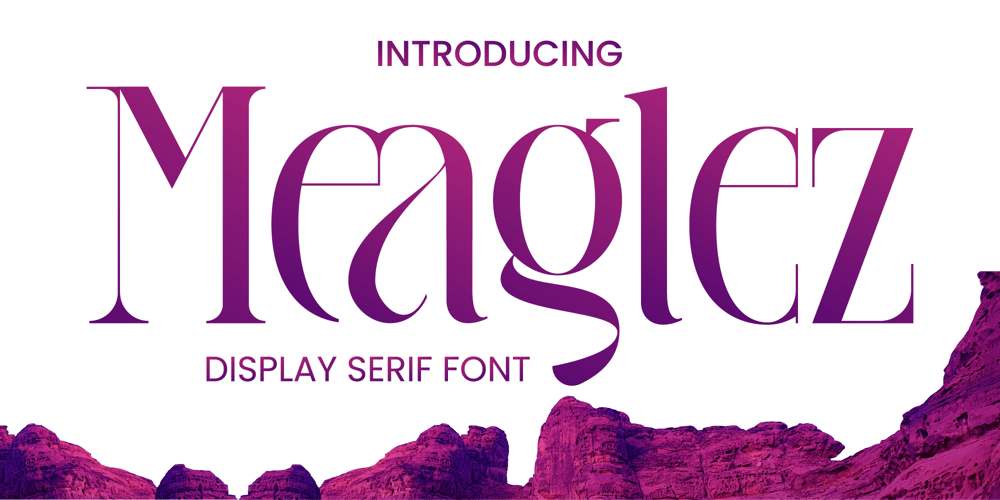
Meaglez Font Family was designed by Randi Irvan and published by Rvandtype. Meaglez contains 1 styles and family package options. Meaglez Display font. Its elegant and cool look makes it the perfect choice for logos, branding, invitations, stationery, wedding designs, social media posts, and so much more. Meaglez font is PUA encoded which means you can access all of the glyphs.Features: Ligature Alternate Characters Numbers and punctuation Multilingual PUA encoded